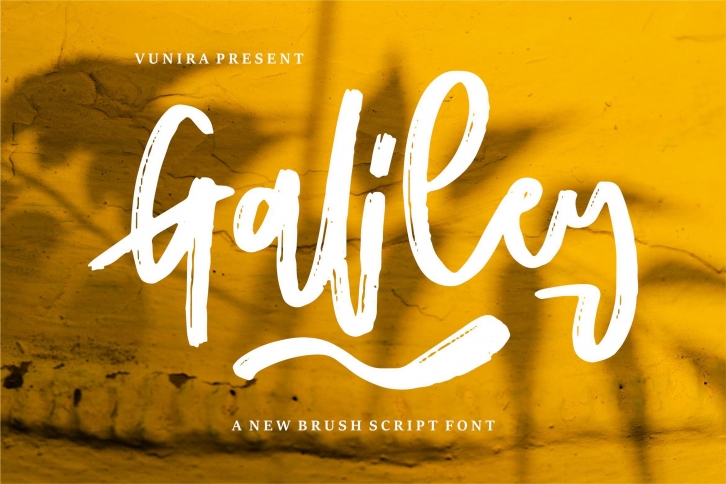
Galiley is a great font that was designed by Vunira. Imagine the amount of combinations you can create using this font! The archive is 2.76 MB and it was released on April 4, 2021. Galiley looks beautiful on wedding invitations, greeting cards, logos, posters, labels, t-shirt designs, logos, business cards and is perfect for use in ink or watercolor works, fashion, magazines, packaging and food menus, children's books and more!